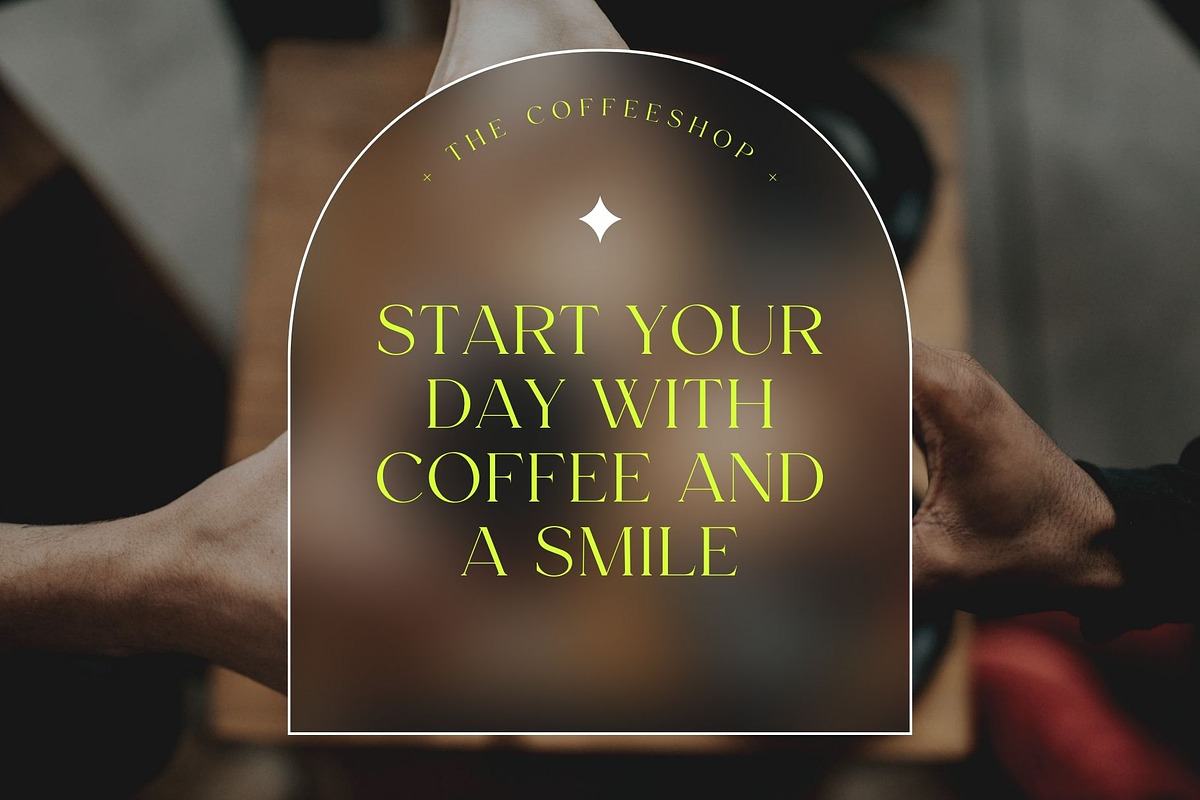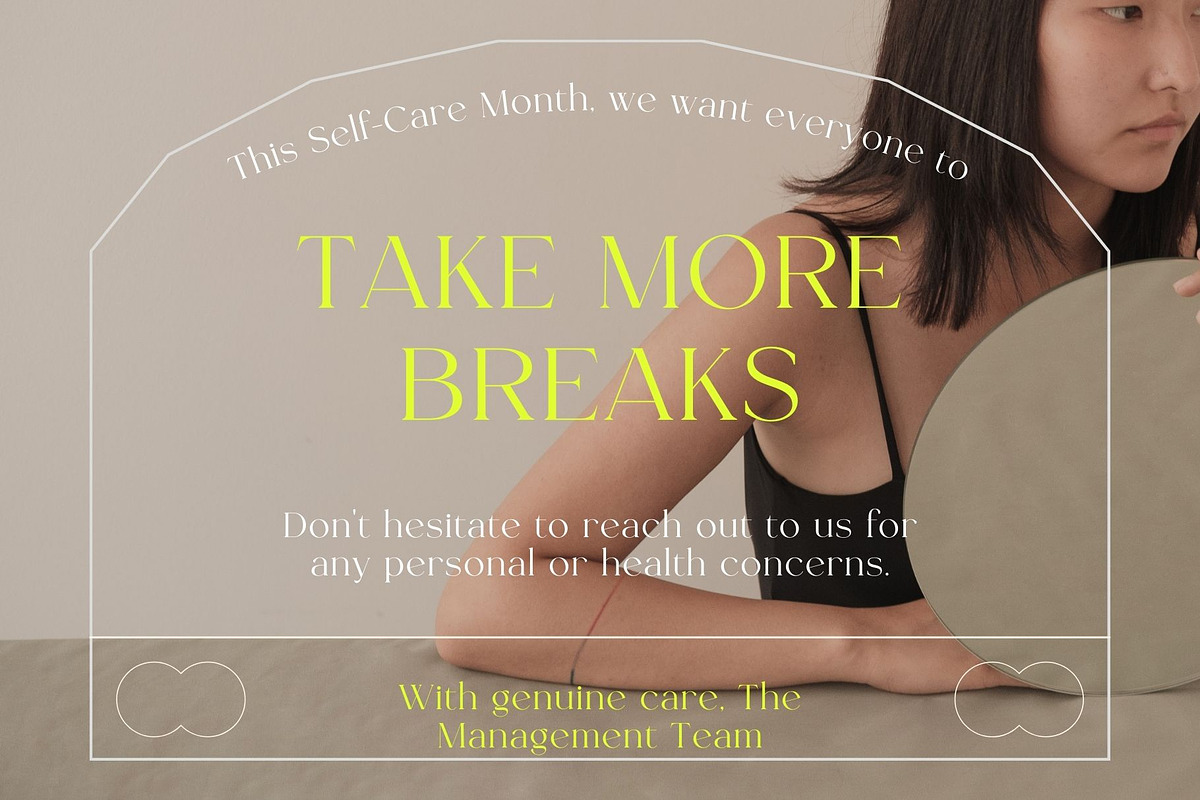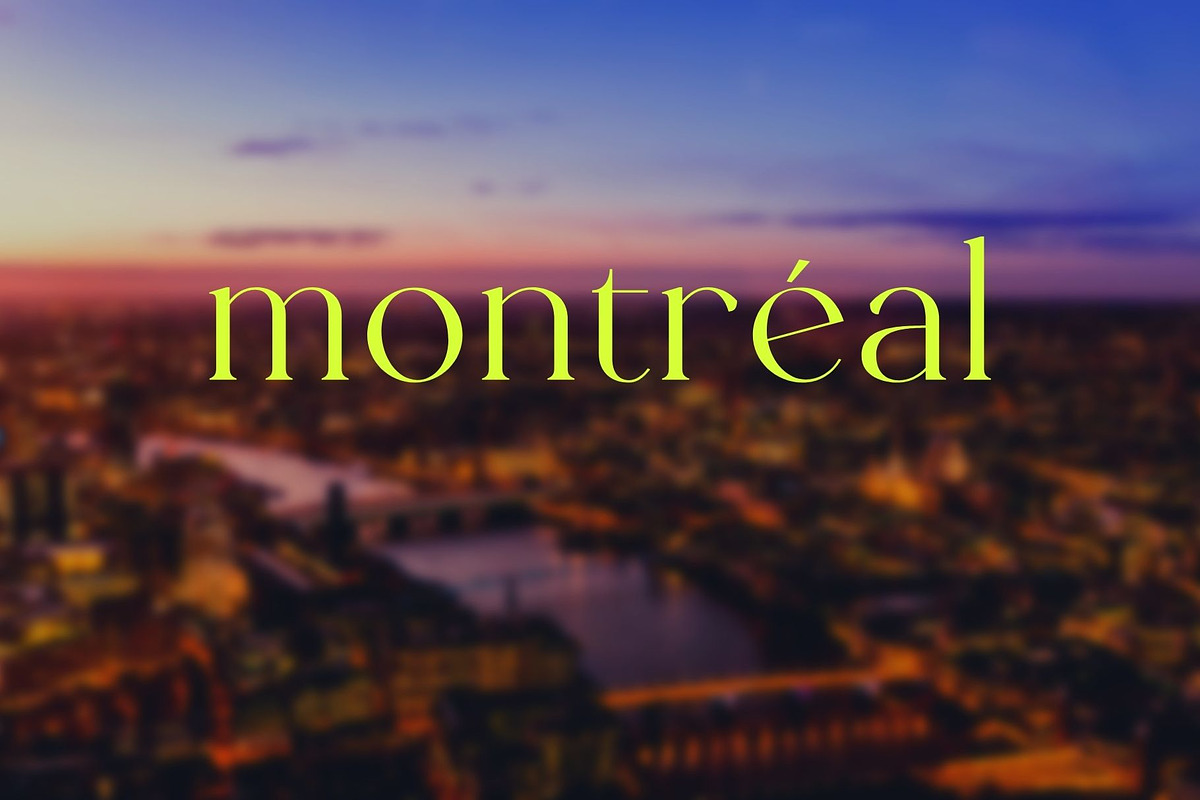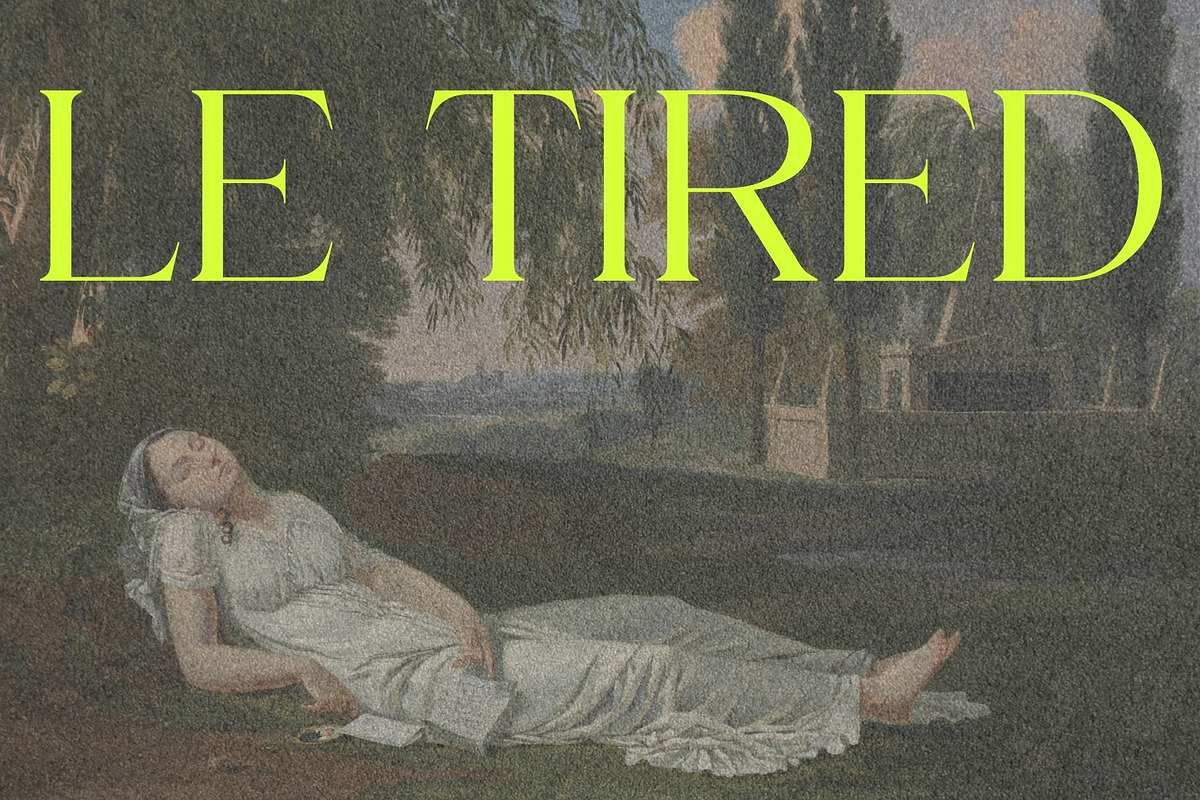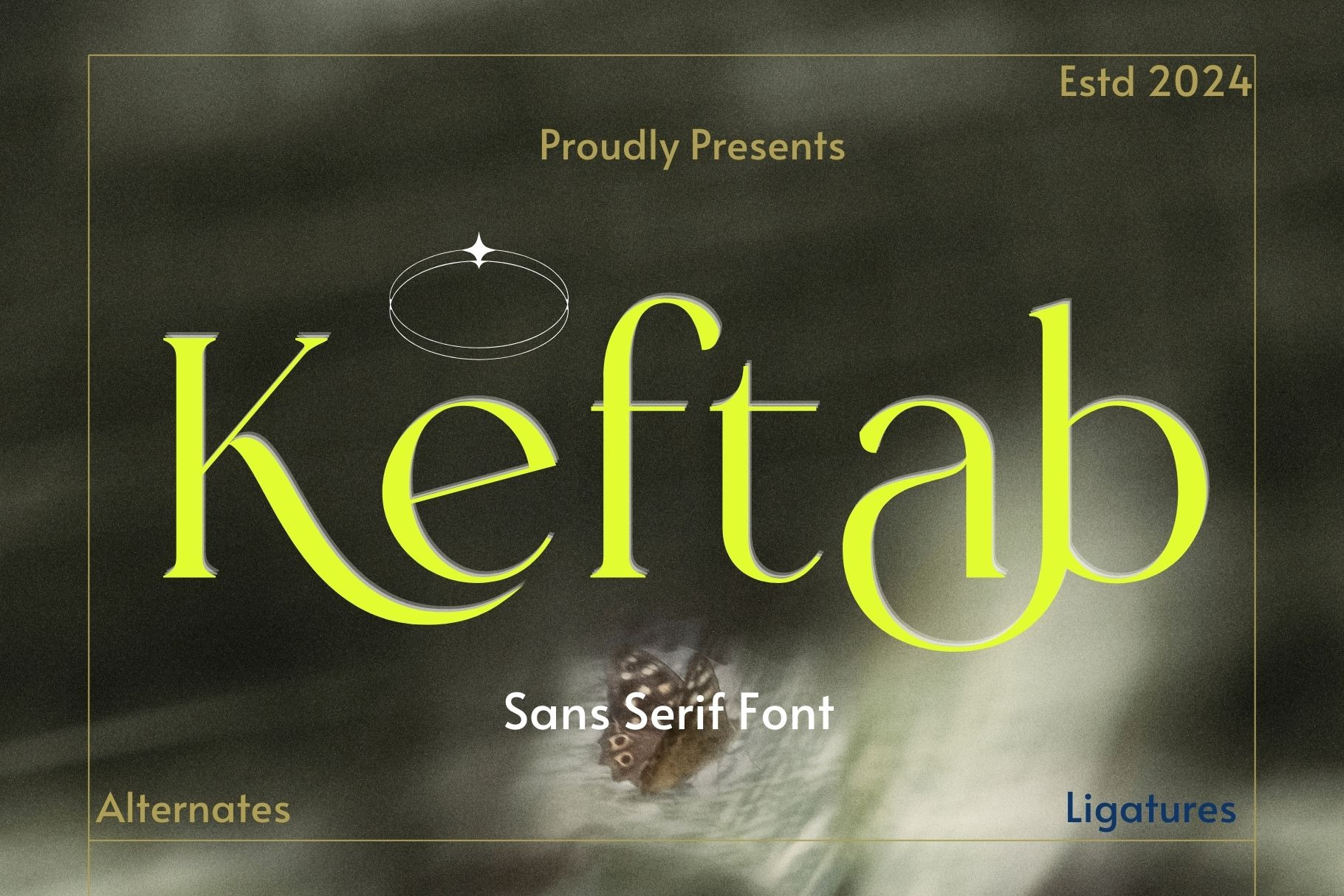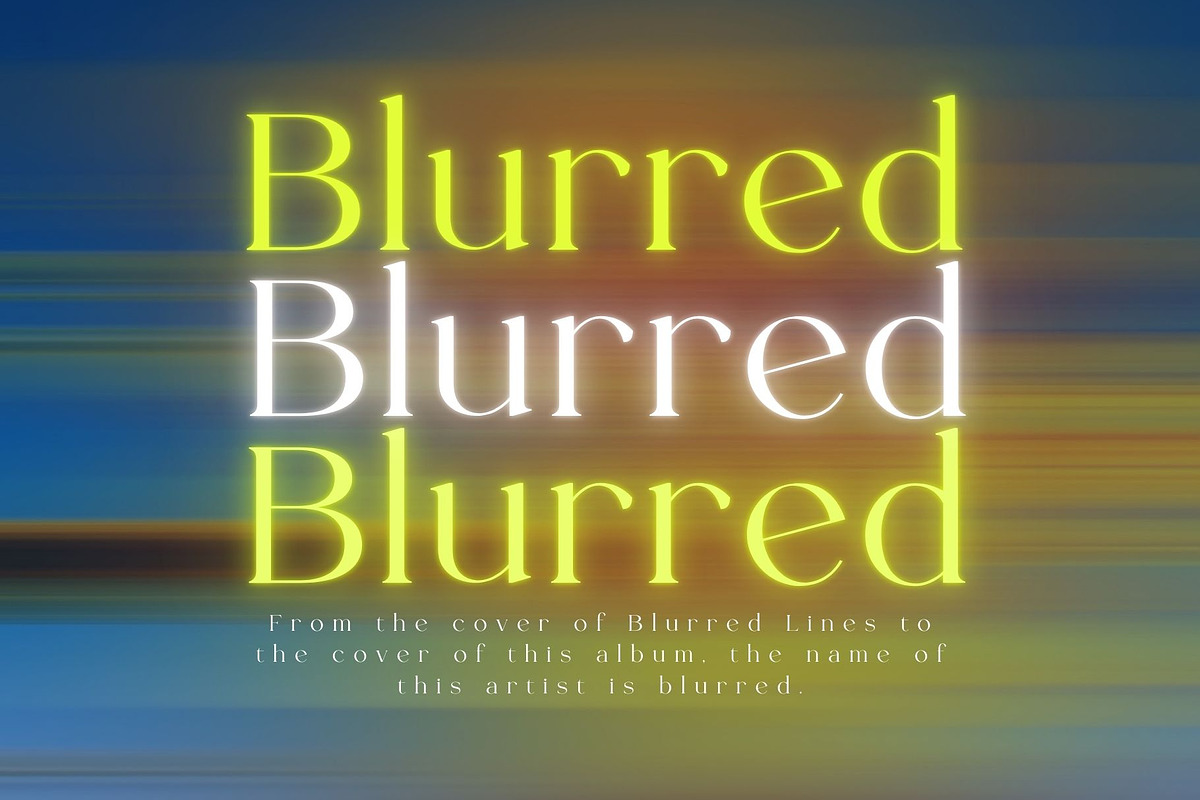
Keftab-Sans serif font
Introducing Keftab Sans serif font
Keftab is a Minimalist sans serif Modern Elegant font with beautiful ligatures, tons of special alternative glyphs, ornament and multilingual support. It's a very versatile font that works great in large and small sizes. Keftab is perfect for branding projects, Logo design, Clothing Branding, product packaging, magazine headers, or simply as a stylish text overlay to any background image.